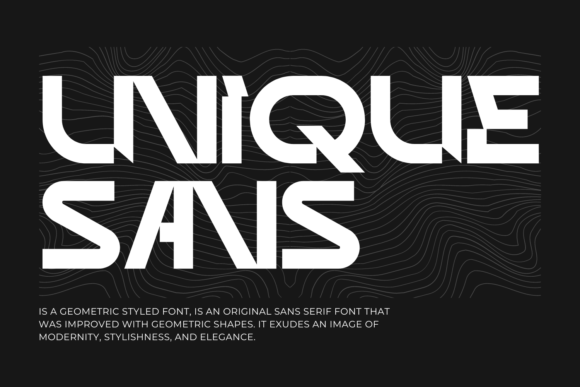
In a world where visual aesthetics reign supreme, introducing Unique Sans Font, the geometric-styled font that shatters the boundaries of conventional typography. This brainchild of 177Studio isn't just a font; it's an experience that captivates and compels.
Unique Sans Font is a resounding symphony of modernity and elegance. Its clean lines, sharp angles, and near-monoline construction evoke a sense of classic durability. Yet, amidst the boldness, there lies a touch of softness, a subtle elegance that's captured in the softened edges and vibrant shapes.
Unleash your creativity with Unique Sans Font's boundless versatility. Whether you're crafting striking logos, captivating headlines, or mesmerizing web designs, this font is your ultimate companion. Its geometric charm adds a touch of sophistication to any project, transforming ordinary words into captivating expressions.
With Unique Sans Font, you're not just downloading a font; you're embracing a world of possibilities. Let your imagination soar as you explore the endless creative avenues it offers. Convey your message with unmatched clarity, making a lasting impression that resonates with your audience.
This font is more than just a collection of letters and symbols; it's a gateway to a world of visual storytelling. Each character is meticulously crafted to convey emotions, evoke sentiments, and leave an indelible mark on your audience's minds.
Say goodbye to bland and uninspiring typography and embrace the allure of Unique Sans Font. Its geometric artistry will elevate your designs, leaving your audience captivated and inspired.
Join the legion of creative visionaries who have harnessed the power of Unique Sans Font to transform their ideas into stunning realities. Experience the magic of a font that's as unique as your imagination.